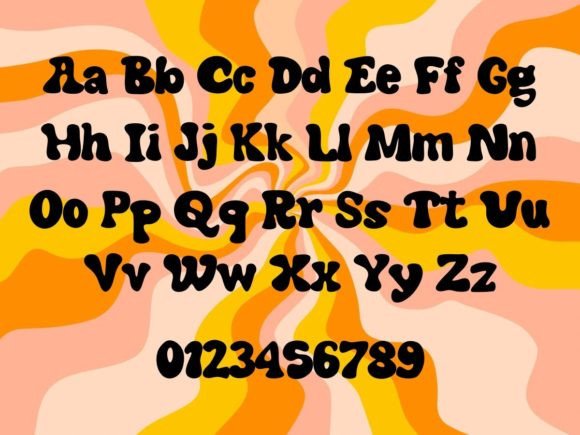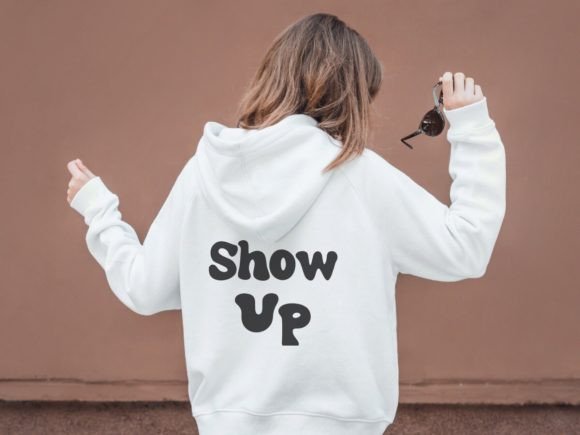
Introduction to Funny Bubbly Groovy Font
Elevate your design projects with our Funny Groovy Classic Font.
This font combines retro charm with a playful twist, making it perfect for a variety of creative projects Whether youโre designing posters, invitations, t-shirts, or social media graphics, this font adds a touch of fun and nostalgia.
Key Features of Funny Bubbly Groovy Font
Why Choose Funny Bubbly Groovy Font?
Funny Bubbly Groovy Font offers exceptional quality and versatility, making it a valuable addition to your design toolkit. Whether you’re creating for personal projects or commercial use, Funny Bubbly Groovy Font delivers professional results.